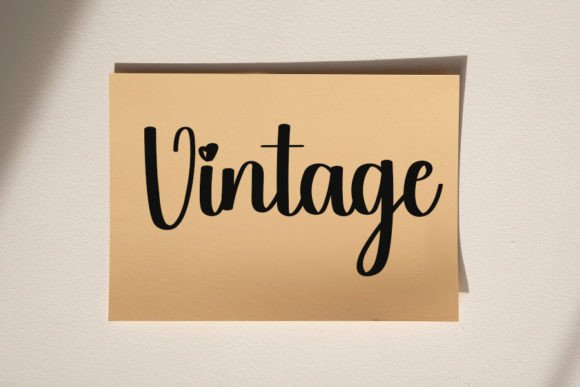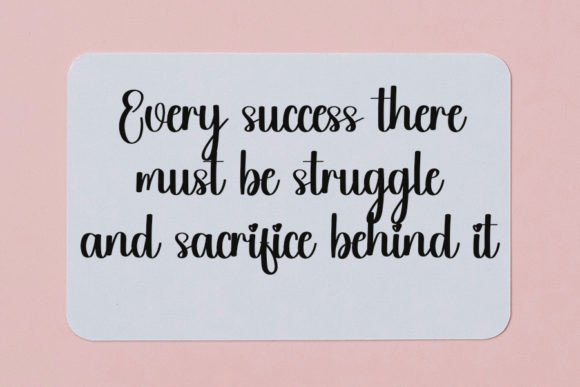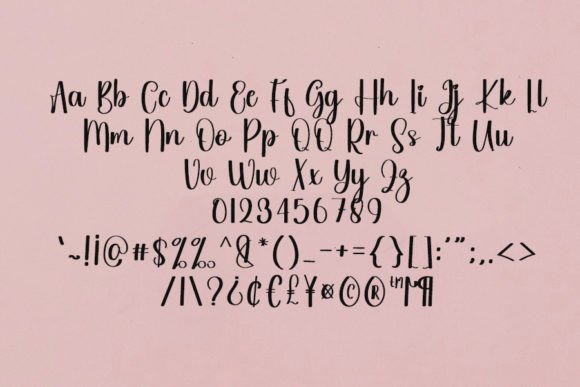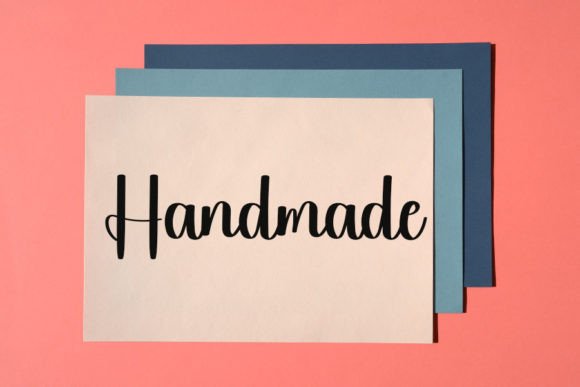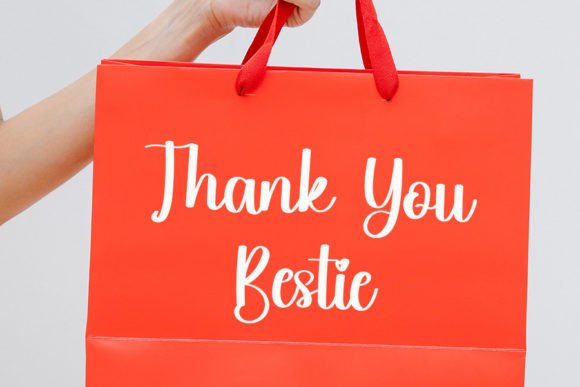
Discover the Elegance of Bridge Font: Elevate Your Designs with Timeless Style
Are you on the hunt for a font that adds a touch of elegance and sophistication to your designs? Look no further than the Bridge Font. This stunning handwritten font is characterized by its neat and beautiful appearance, making it perfect for a wide range of projects. With its incredibly distinct and timeless style, Bridge Font is sure to capture the hearts of designers and crafters alike.
The Unique Charm of Bridge Font
Bridge Font boasts an elegant touch that sets it apart from other fonts. Its unique charm lies in its ability to convey a sense of refinement and luxury, making it ideal for designs that require a high level of sophistication. Whether you’re working on a branding project, a wedding invitation, or a packaging design, Bridge Font is sure to make a lasting impression.
Key Features of Bridge Font
- Handwritten Elegance: Bridge Font features a beautiful handwritten style that exudes elegance and refinement.
- Distinctive Style: Its incredibly distinct style makes it perfect for designs that require a unique touch.
- Timeless Appeal: Bridge Font’s timeless style ensures that your designs will remain relevant for years to come.
- Versatility: This font is perfect for a wide range of projects, from branding and advertising to packaging and editorial design.
Why Designers and Crafters Love Bridge Font
Bridge Font has quickly become a favorite among designers and crafters due to its versatility and elegance. Here are just a few reasons why:
Tips for Using Bridge Font in Your Designs
In conclusion, Bridge Font is a stunning handwritten font that is sure to elevate your designs to the next level. With its elegant touch, distinctive style, and timeless appeal, it’s the perfect choice for designers and crafters looking to create spectacular designs. Whether you’re working on a branding project, a wedding invitation, or a packaging design, Bridge Font is sure to make a lasting impression.